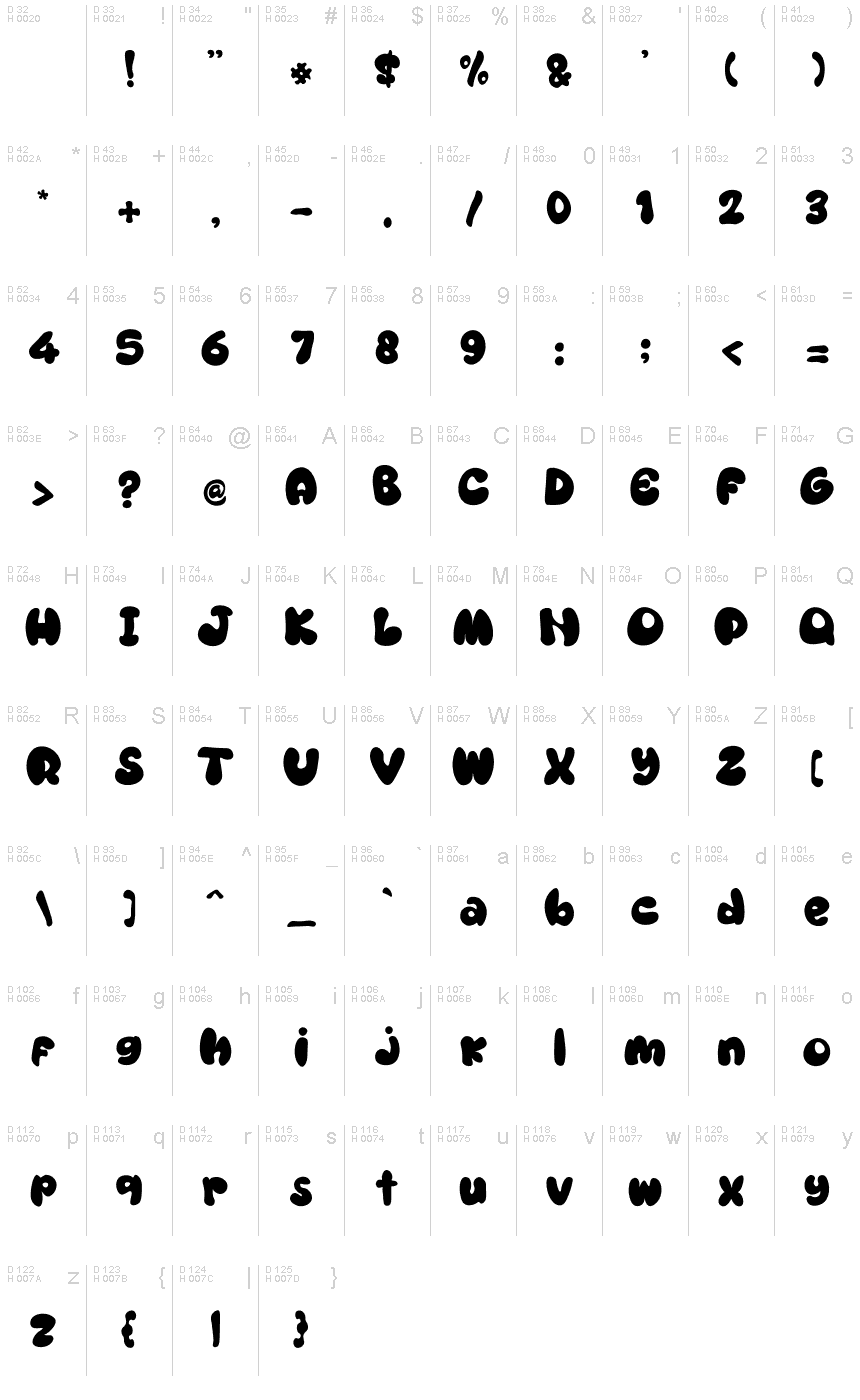
Super Boom
Super Boom is a cute display font designed by Erik Studio. Clean and a little bit quirky, this font is the perfect fit for all of your logos, branding, social media, and crafty DIY projects.